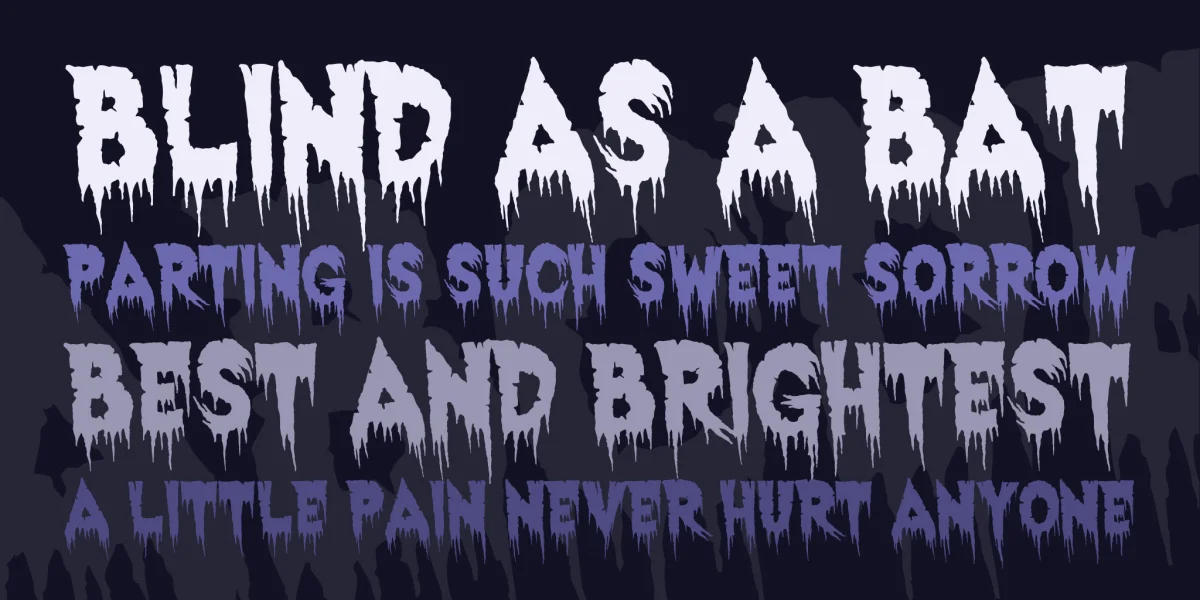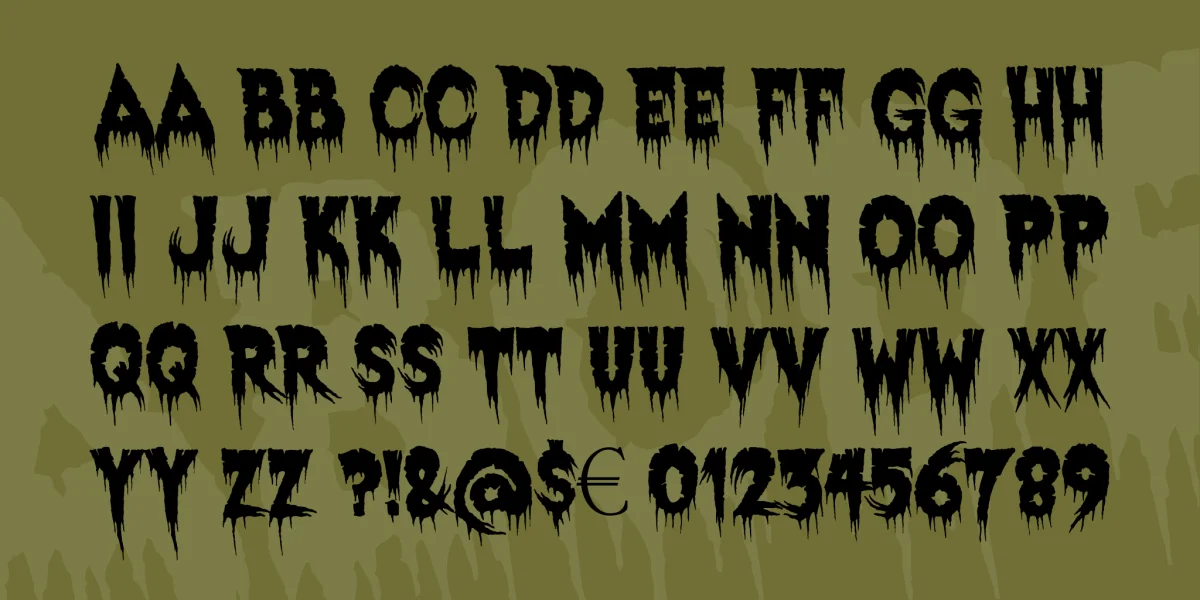
Created 2010, hand-lettered in response to classic, creepy fonts like Creepshow. This is a free font, and I mean FREE. Use it however you want, for whatever you want. If you make something cool with it, I'd love to see it - email me at  and tell me about it. If you offer it for download on your own font site, PLEASE include this Read Me. That's not too much to ask, is it? This font is intended for specialty and graphic uses. It will look just awful if used in a paragraph format. For more free fonts and other downloadable goodies, visit www.sinisterfonts.com